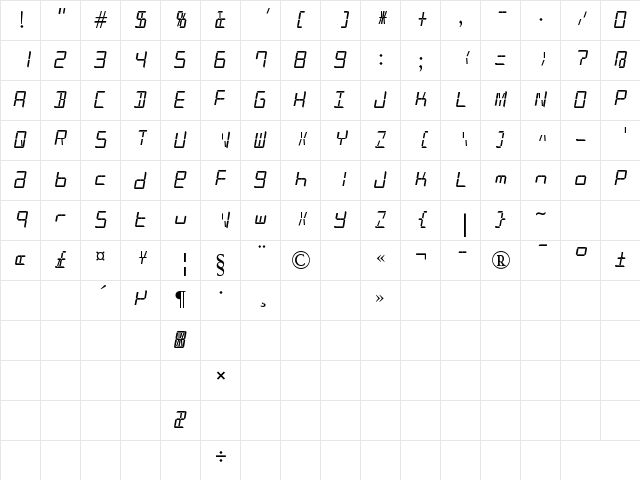
Patopian 1986 Regular
Design Context for Patopian 1986 Typeface
Patopian 1986 is a composed and adaptable typeface that performs quietly and consistently across a wide range of design contexts.
Pro Tip: Use Patopian 1986 in both headline and body roles to test its range before committing to a single application.